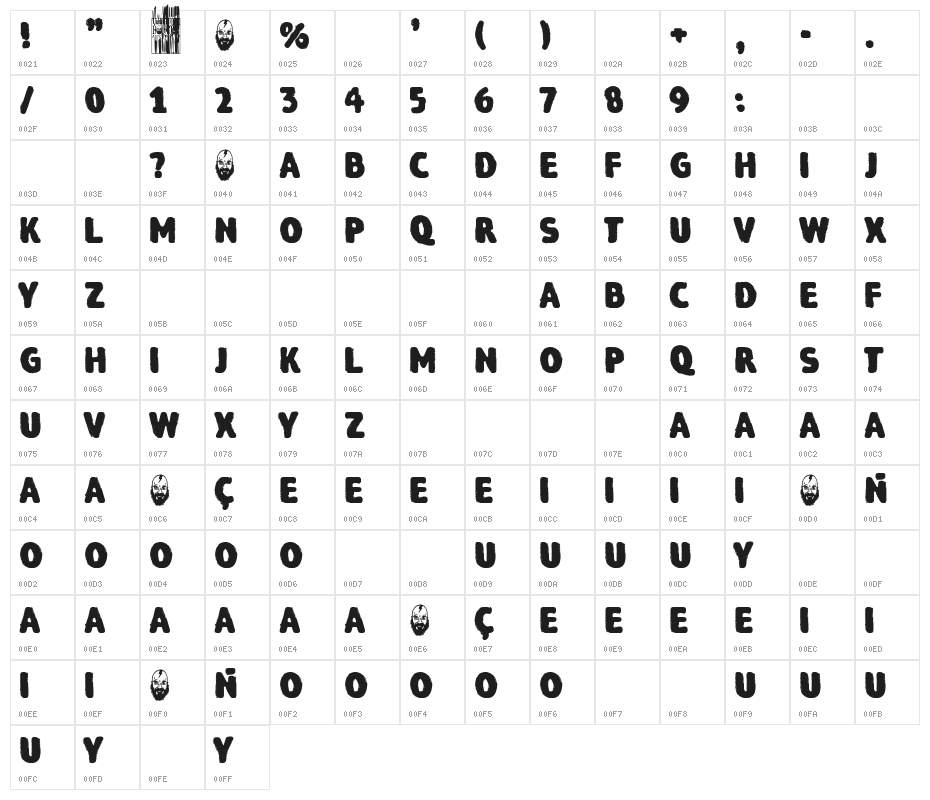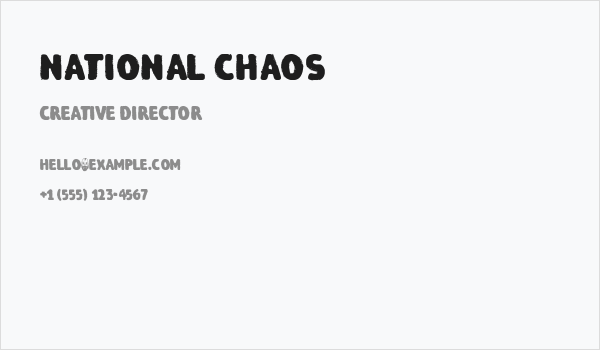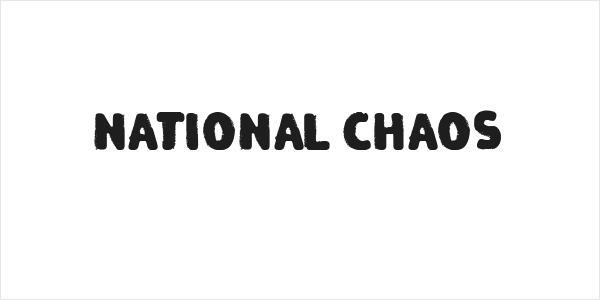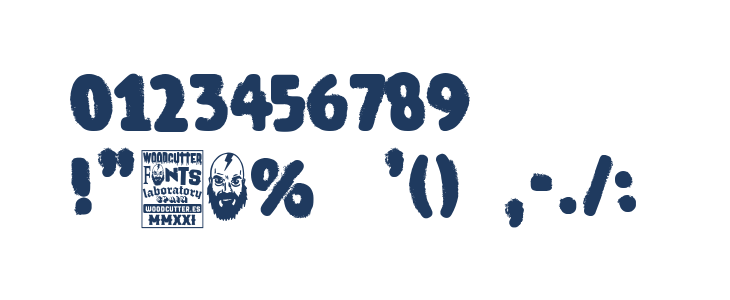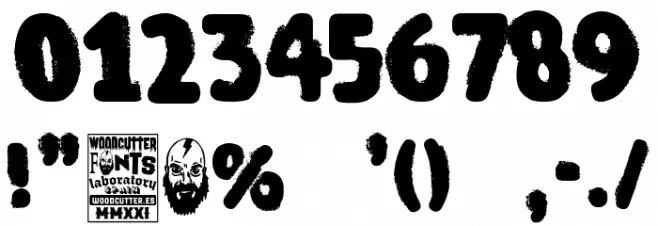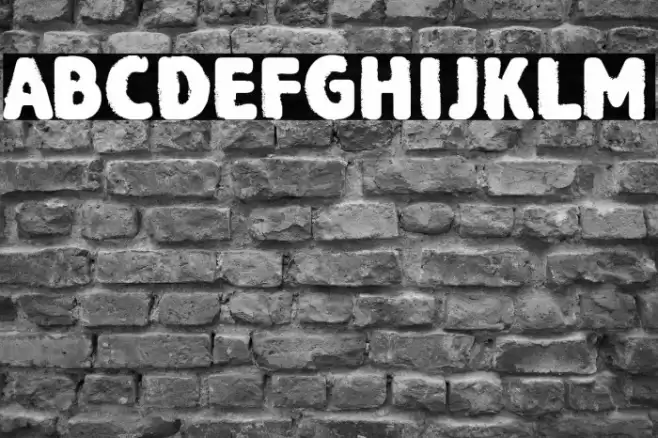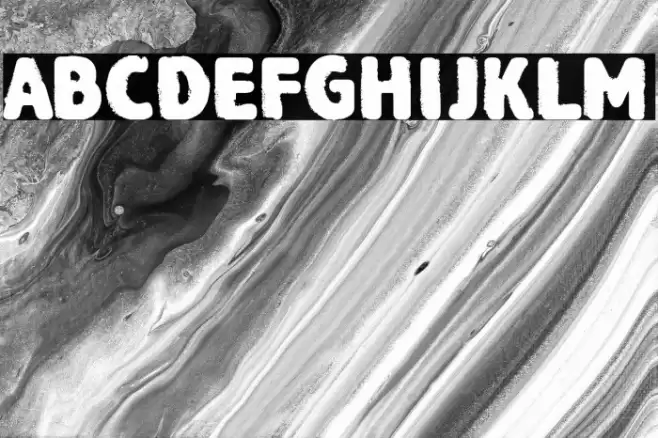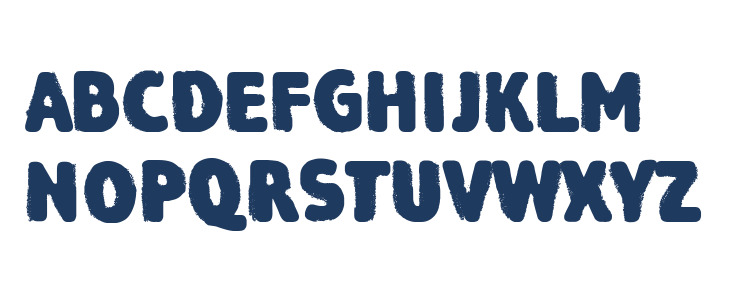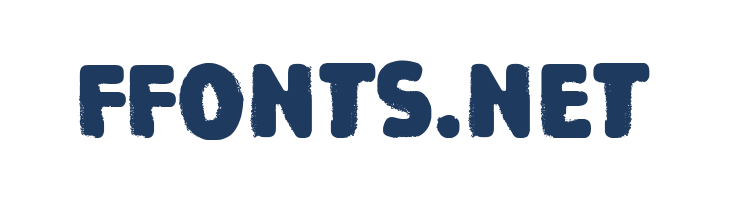
National Chaos Font
This font features a bold and rugged style with a distressed texture, giving it a raw and edgy appearance. The characters are thick and substantial, with a slightly irregular outline that adds to the chaotic and dynamic feel. The uppercase and lowercase letters maintain a consistent weight, while the numbers and special characters follow the same bold and textured design. This font is ideal for projects that require a strong and impactful visual presence, such as posters, headlines, and branding materials. Its unique texture and boldness make it stand out, capturing attention with its distinctive style.
| Proposed Projects | Ideal for posters, headlines, branding, and any project needing a strong visual impact. |